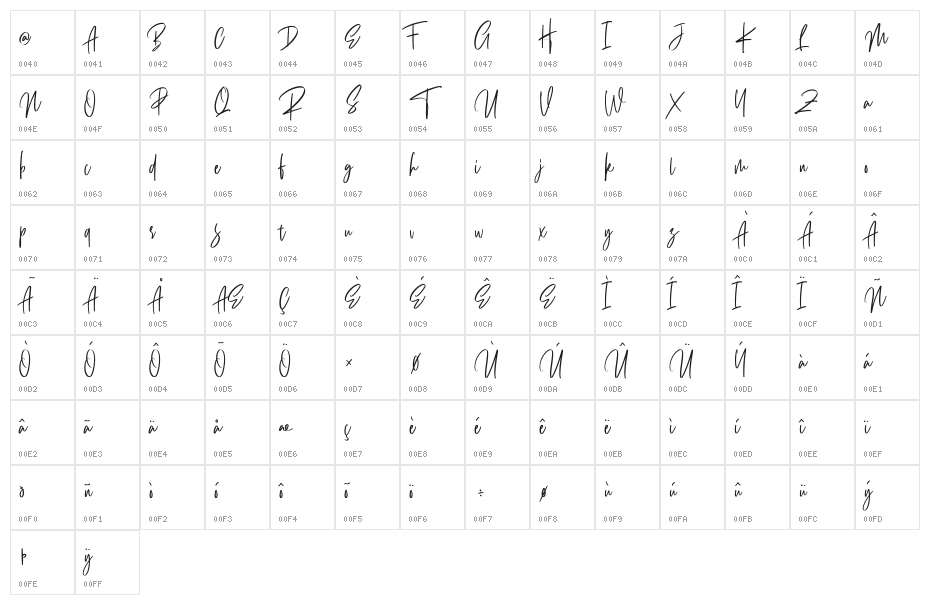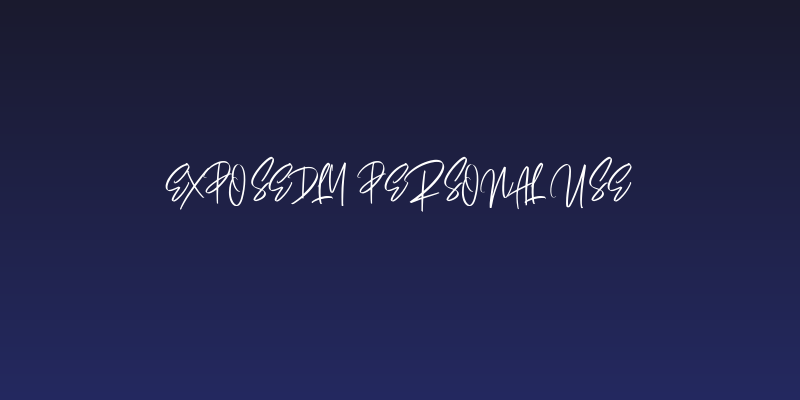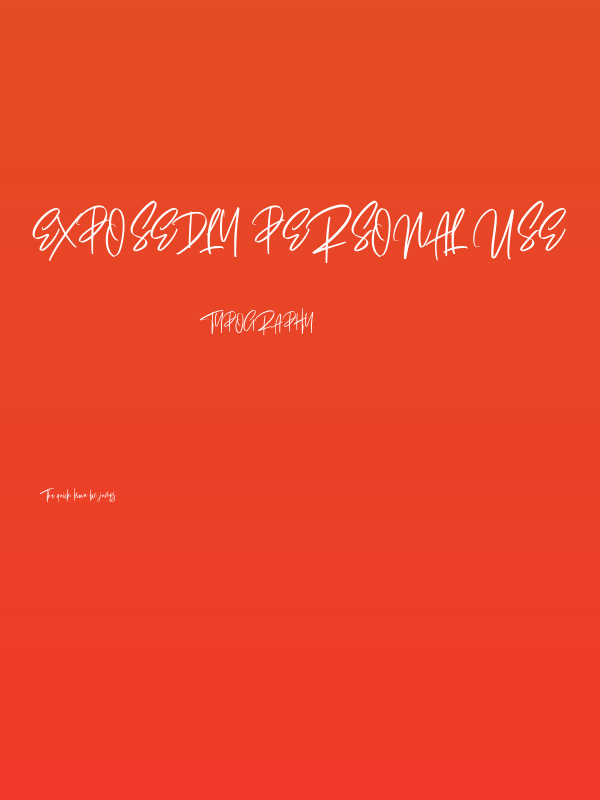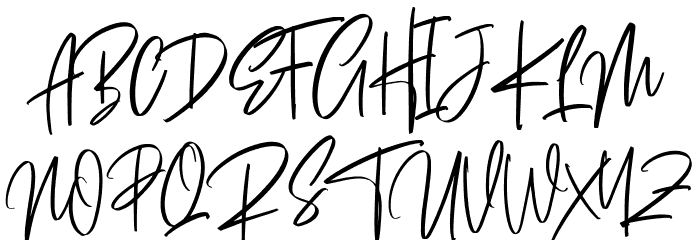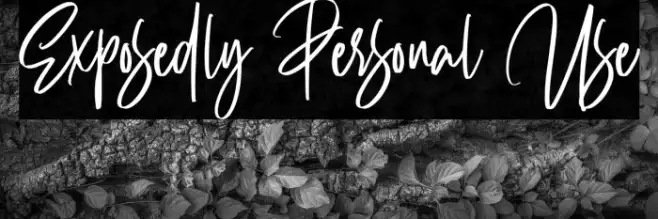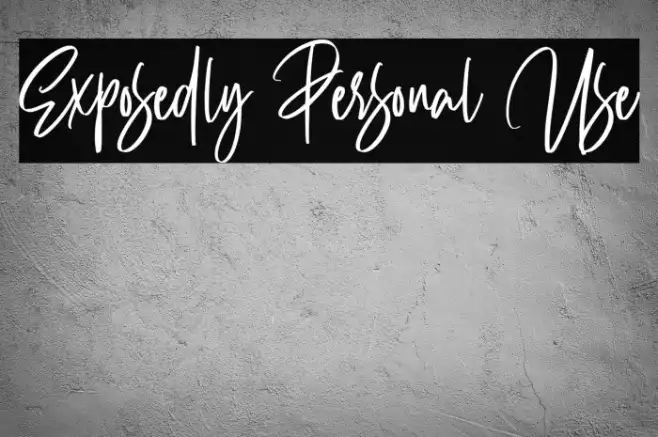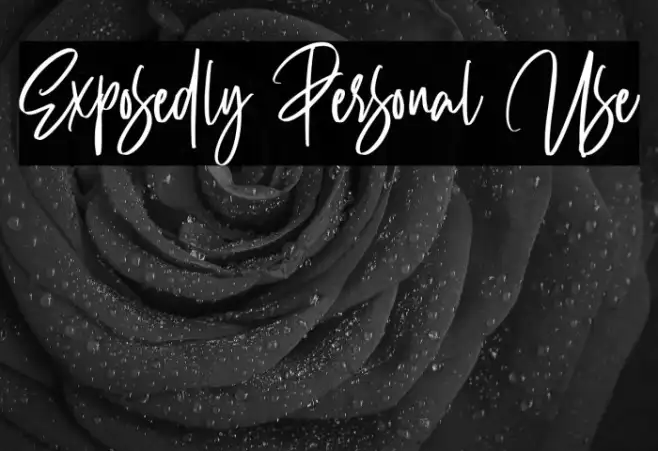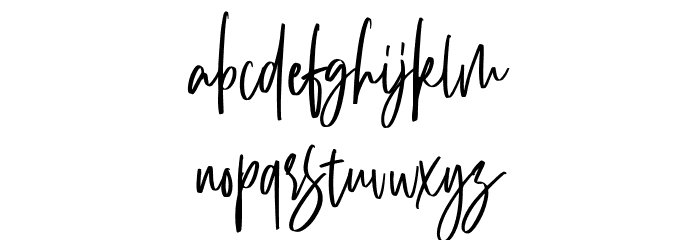
Exposedly Personal Use Font
Exposedly Personal Use Description
This font features a dynamic and expressive handwritten style, characterized by its fluid and flowing letterforms. The strokes are bold and confident, with a natural, organic feel that mimics the motion of a brush or pen. The uppercase and lowercase letters maintain a consistent style, with smooth curves and varying line thickness that add to its lively appearance. The font's playful yet elegant nature makes it suitable for creative and artistic projects. It captures attention with its unique and personal touch, making it ideal for designs that require a humanistic and approachable feel.